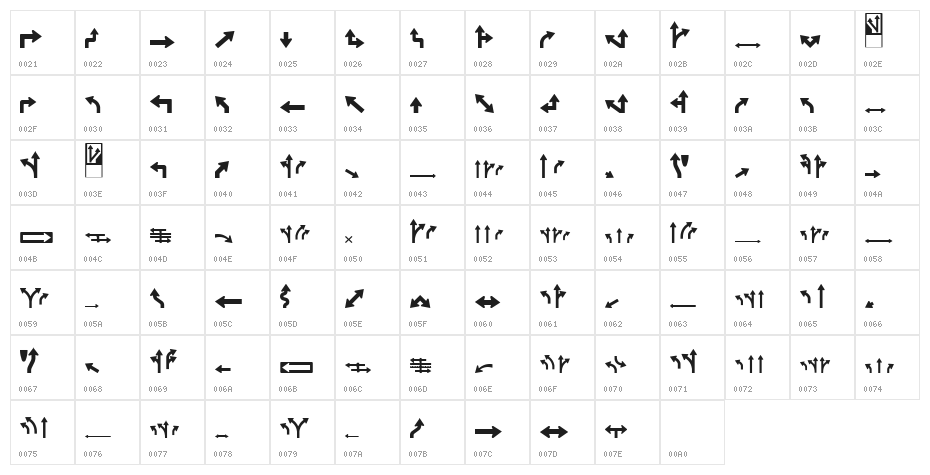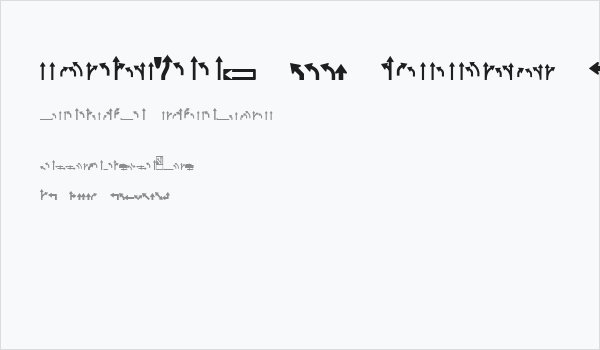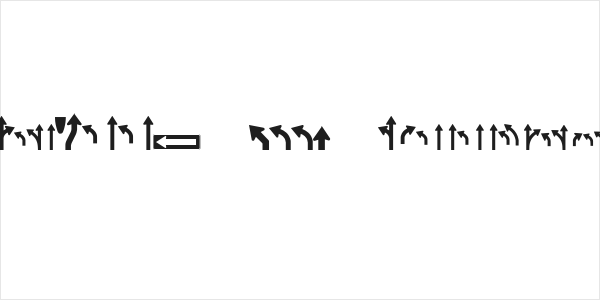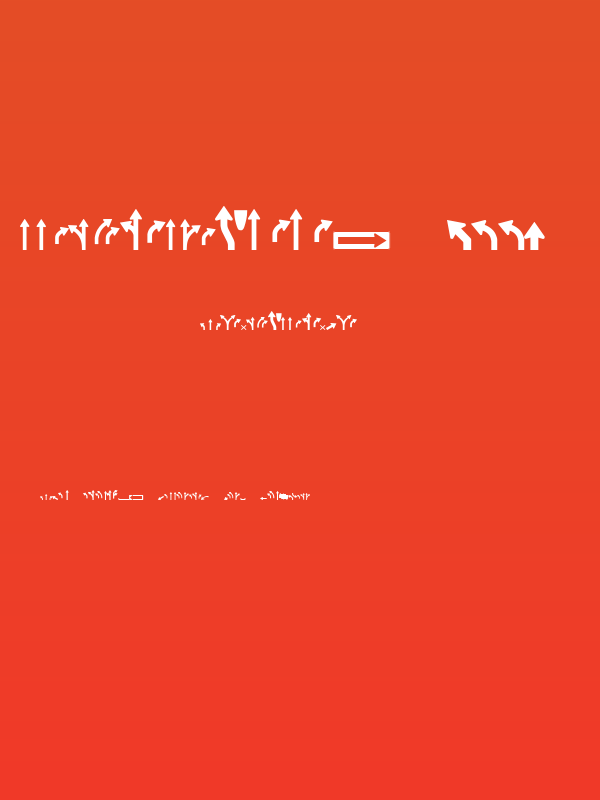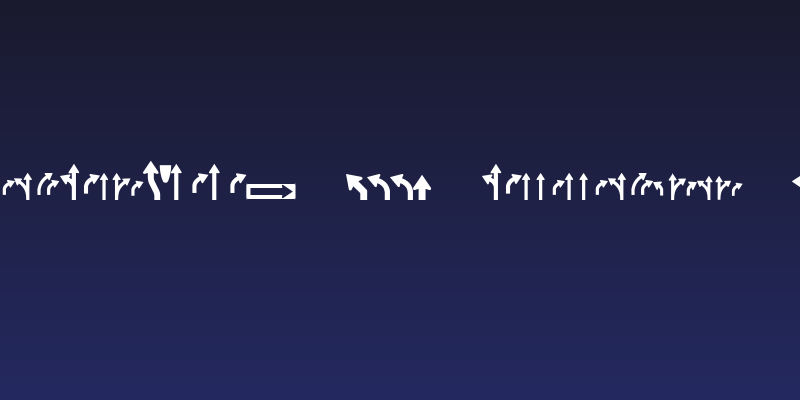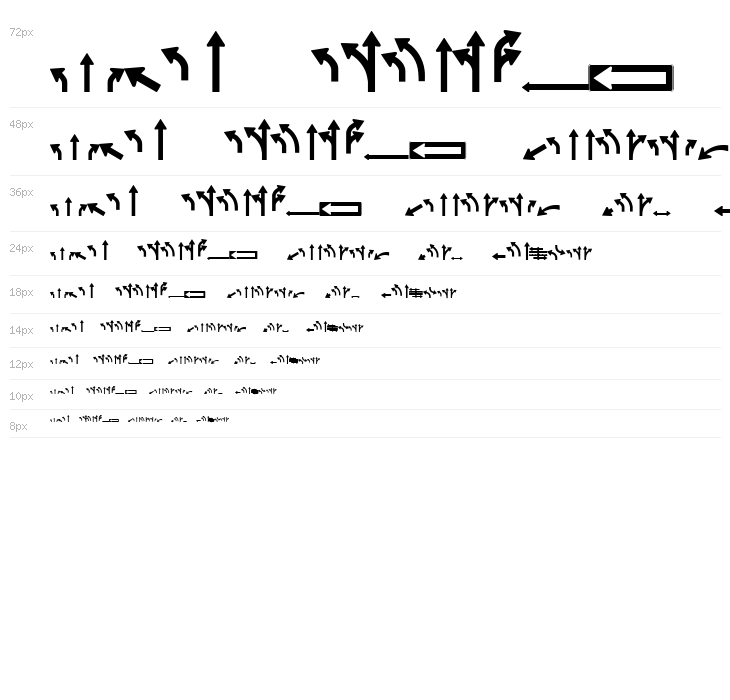
Roadgeek 2005 Arrows 1 Font
Roadgeek 2005 Arrows 1 Description
This is a collection of directional arrow symbols commonly used in road signage. The arrows are bold and clear, designed to convey direction and movement effectively. They vary in style, including straight, curved, and angled forms, each with a distinct purpose in guiding traffic. The symbols are highly legible and standardized, ensuring they are easily understood by drivers. The design is utilitarian, focusing on functionality over aesthetics, making it ideal for practical applications in transportation and navigation.
| Overall Style | Utilitarian |
| Use Case | Signage, Navigation |
| Proposed Projects | Ideal for use in road signage, navigation systems, transportation maps, and any project requiring clear directional indicators. |